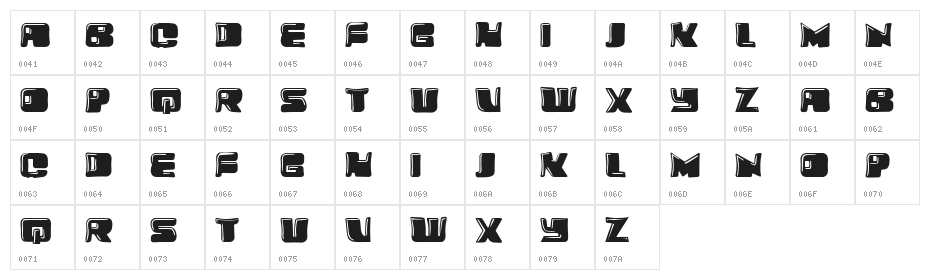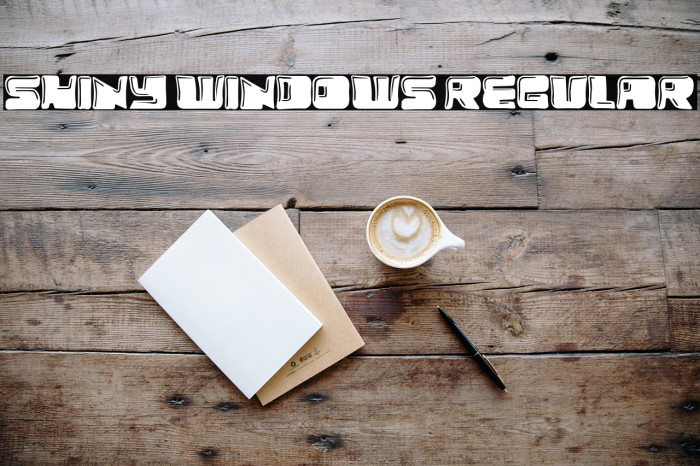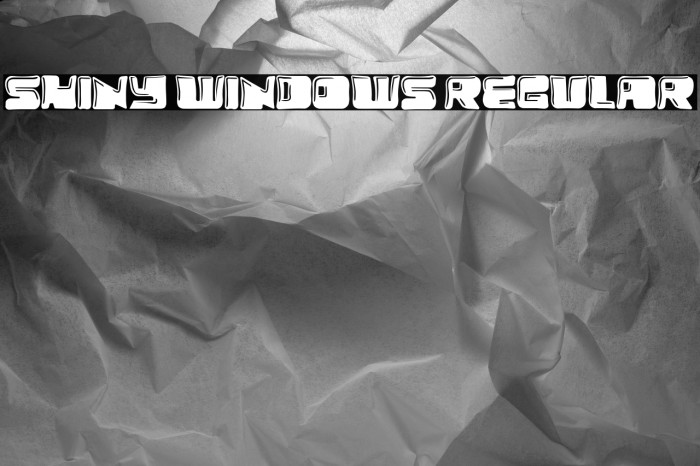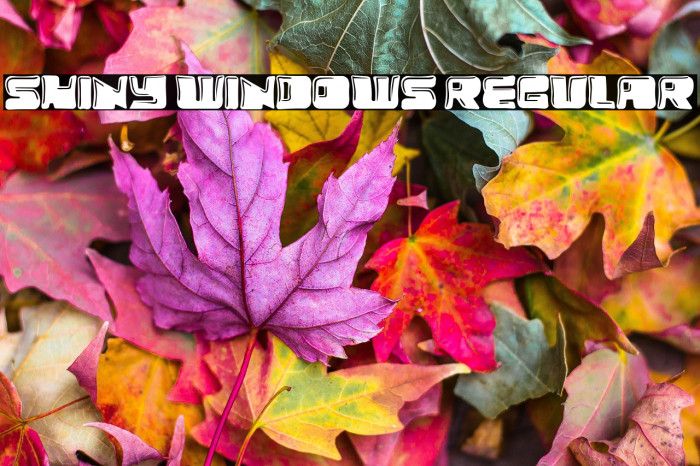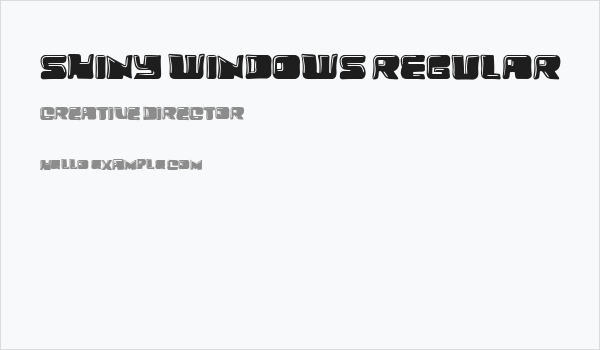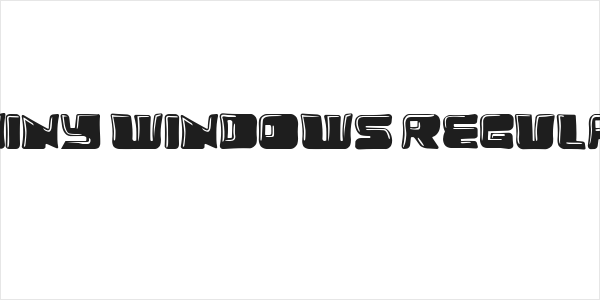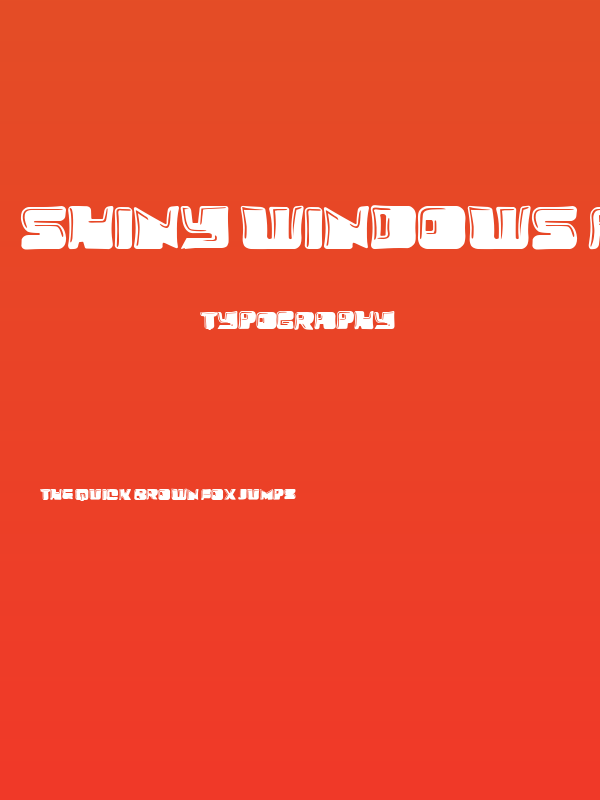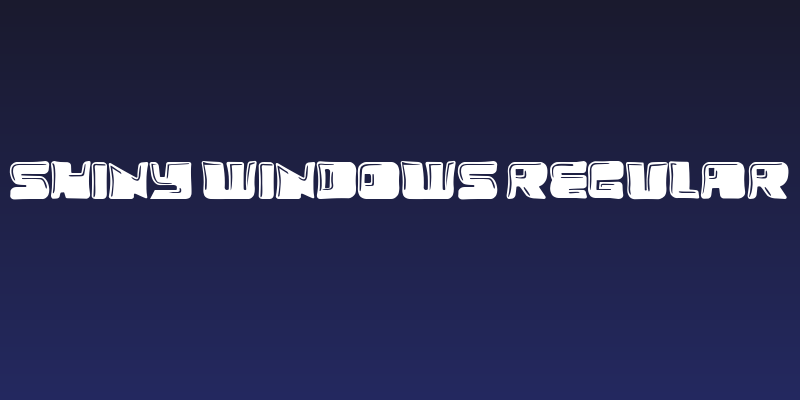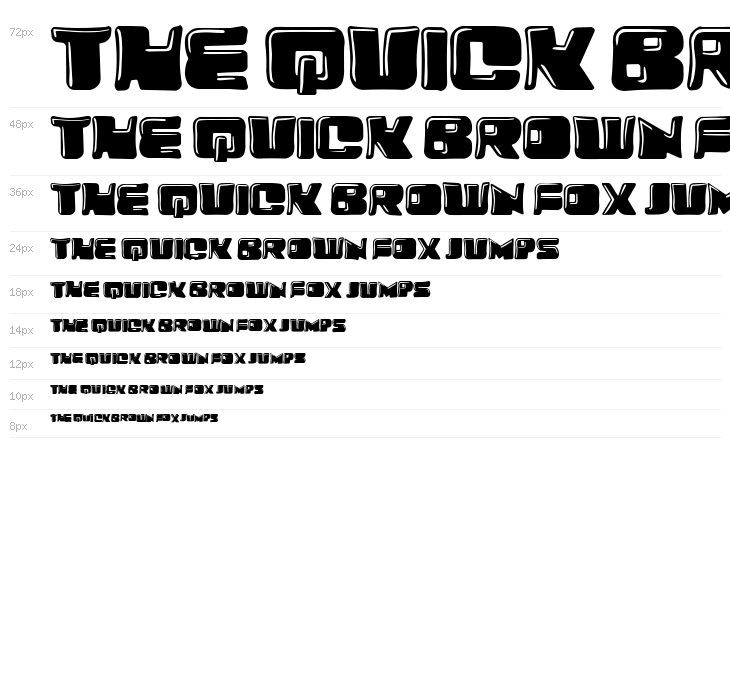
Shiny Windows Regular Font
Shiny Windows Regular Description
This font features a bold, playful style with a glossy, three-dimensional appearance. The characters are rounded and have a shiny, reflective surface that gives them a unique, eye-catching look. The design is reminiscent of retro or vintage styles, with a modern twist that makes it suitable for contemporary use. The letters are evenly spaced, ensuring readability while maintaining a distinct, decorative flair. This font is ideal for projects that require a fun and engaging visual element, such as children's books, posters, or branding for playful products.
| Overall Style | Retro-Modern |
| Proposed Projects | Ideal for children's books, playful branding, posters, and creative designs. |